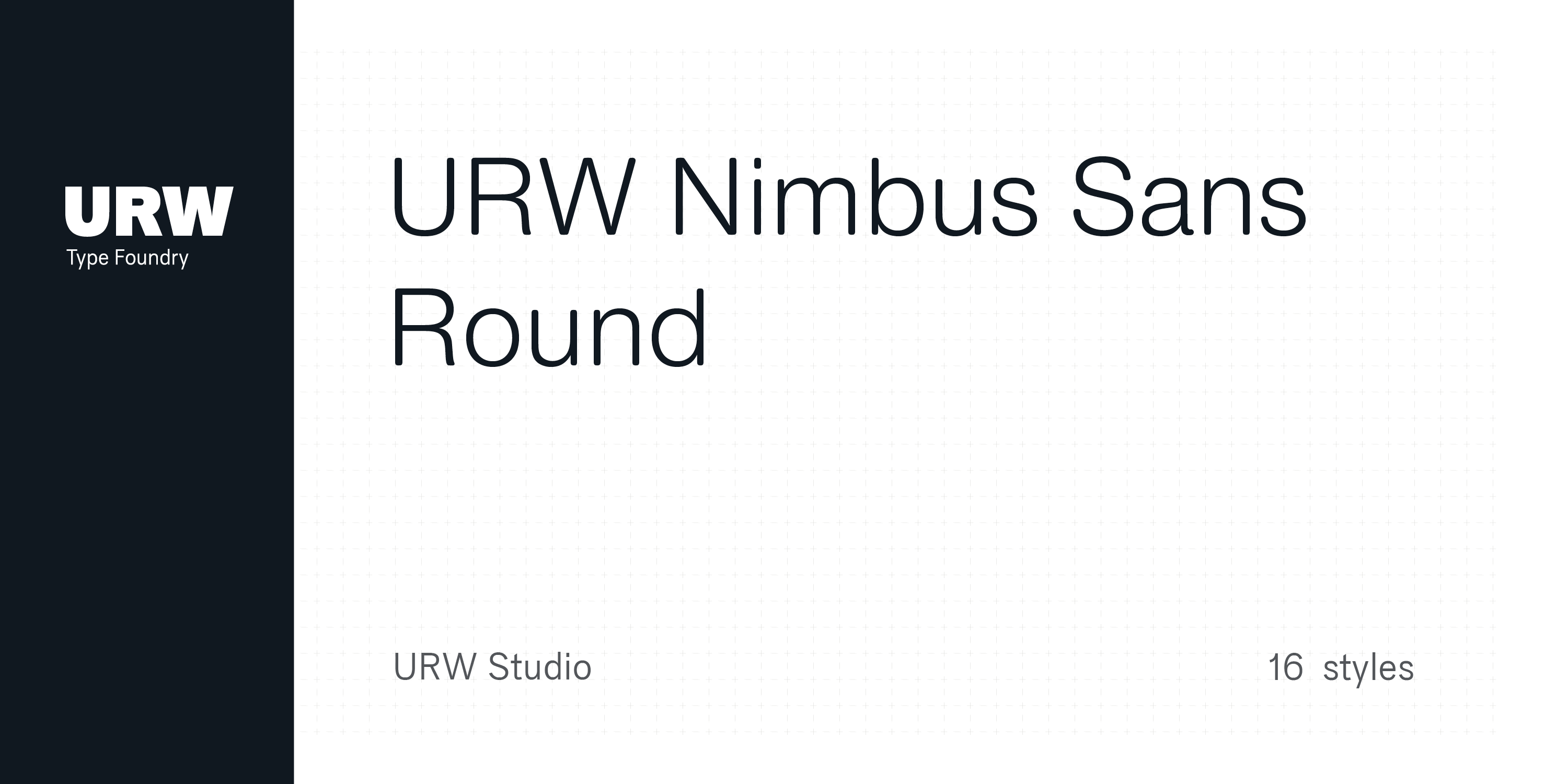
The Nimbus Sans Round Font is a friendly, modern, and highly versatile sans-serif typeface, distinguished by its soft, rounded terminals. This characteristic gives it an approachable and clean aesthetic, making it an excellent choice for user-friendly digital interfaces, children's brands, healthcare communications, food packaging, casual apps, and any design that aims for a warm, inviting, and contemporary feel. Whether you’re crafting an intuitive user experience or a brand identity that emphasizes warmth and clarity, this font will imbue your project with a sense of accessibility and modern charm.
What makes the Nimbus Sans Round Font so exciting is its exceptional balance of high legibility and a gentle, welcoming personality. The rounded edges reduce visual harshness, making it incredibly easy on the eyes, especially for extended reading. This font is perfect for designers who prioritize a clean, uncluttered, and highly versatile visual identity that feels both current and trustworthy. It stands out by offering a subtle yet distinct appeal, making any text it graces feel incredibly precise and thoughtfully designed, without being overly rigid. The inherent clarity and sophisticated simplicity of the Nimbus Sans Round Font ensure that your message is communicated with undeniable elegance and directness.
The Nimbus Sans Round Font typically offers a comprehensive family to support diverse design needs. While specific variations may depend on the font package, you can generally expect to find a range of weights such as Light, Regular, Medium, SemiBold, and Bold, providing extensive options for hierarchy and emphasis. Many versions of the Nimbus Sans Round Font Free Download also include corresponding Italic or Oblique styles for each weight, adding dynamic flexibility for emphasis and stylistic variation. Additionally, some premium packages might offer Condensed or Extended widths, various figure styles (e.g., lining, old-style), and potentially even alternate characters for specific glyphs, allowing for more nuanced and custom typographic solutions. This extensive family ensures that the Nimbus Sans Round Font can be adapted to almost any design requirement, maintaining a consistent, modern, and highly functional aesthetic throughout your project.